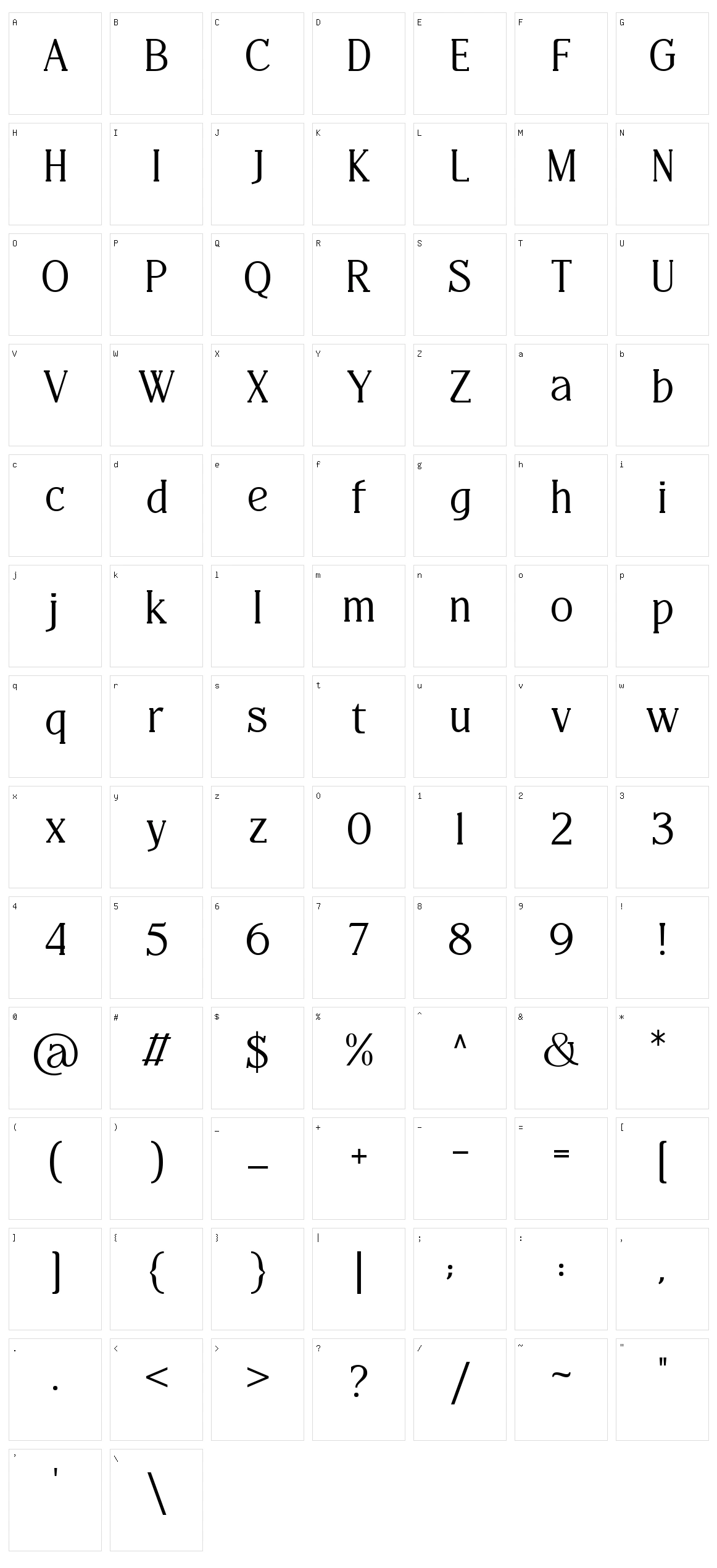
The free font Thenaskle is carefully designed by Alit Design, showcasing a thoughtful balance of creativity and usability and falls under the Serif font style. When you download the ZIP file, it contains only 171.22 KB of font files, making it lightweight and quick to download. Please review the license details below to understand permitted usage and distribution rights. If license information is not available, we recommend using this font for personal projects only or contacting the author directly for commercial usage permissions.